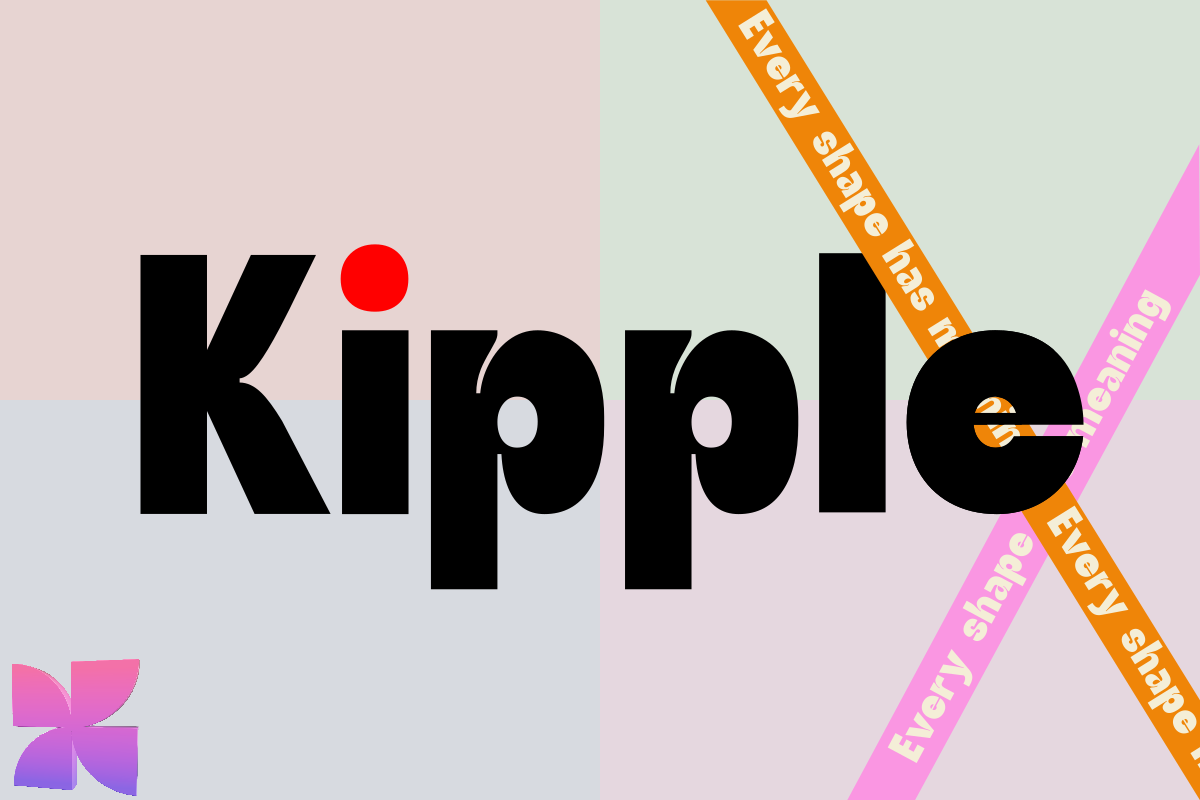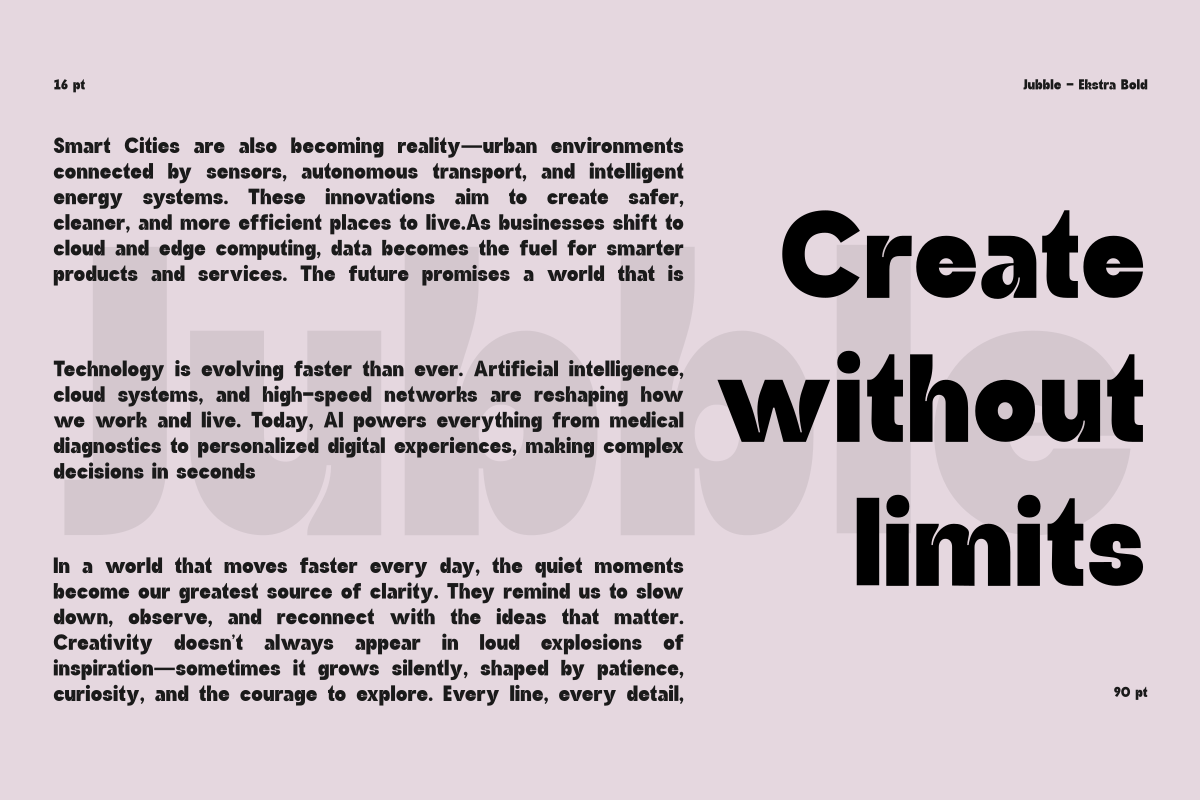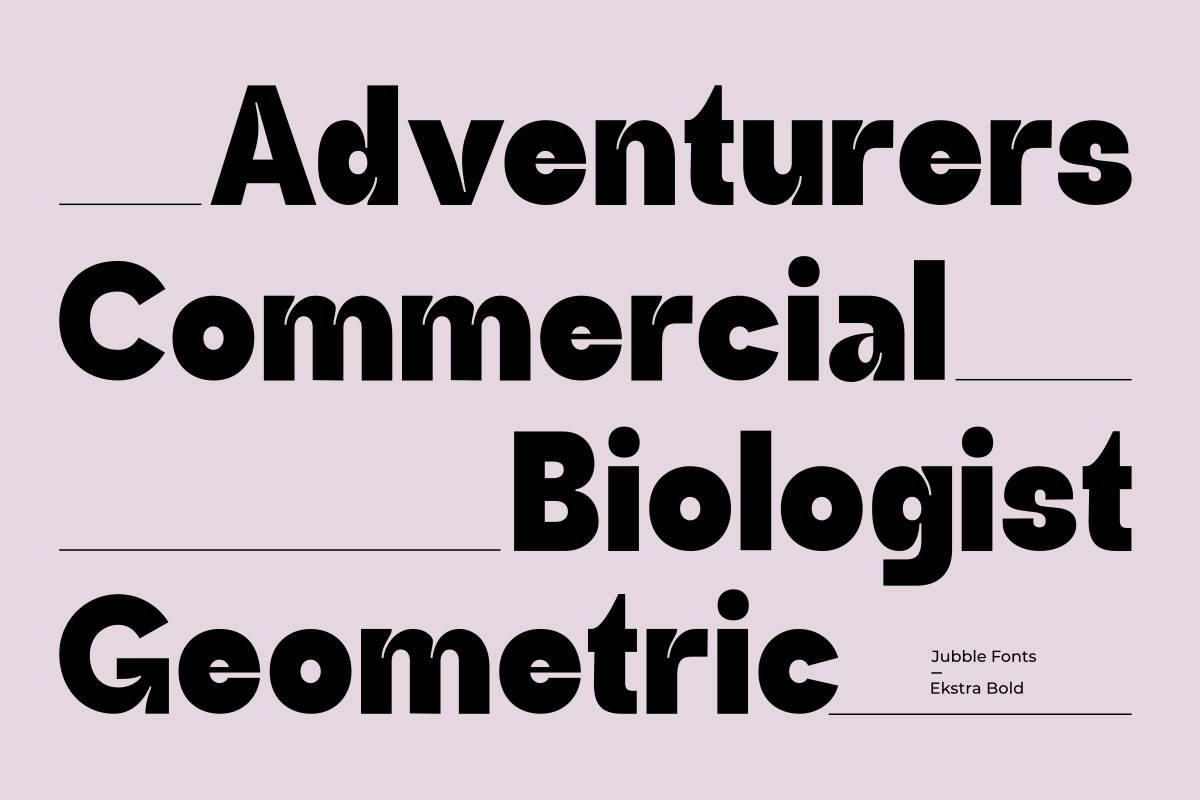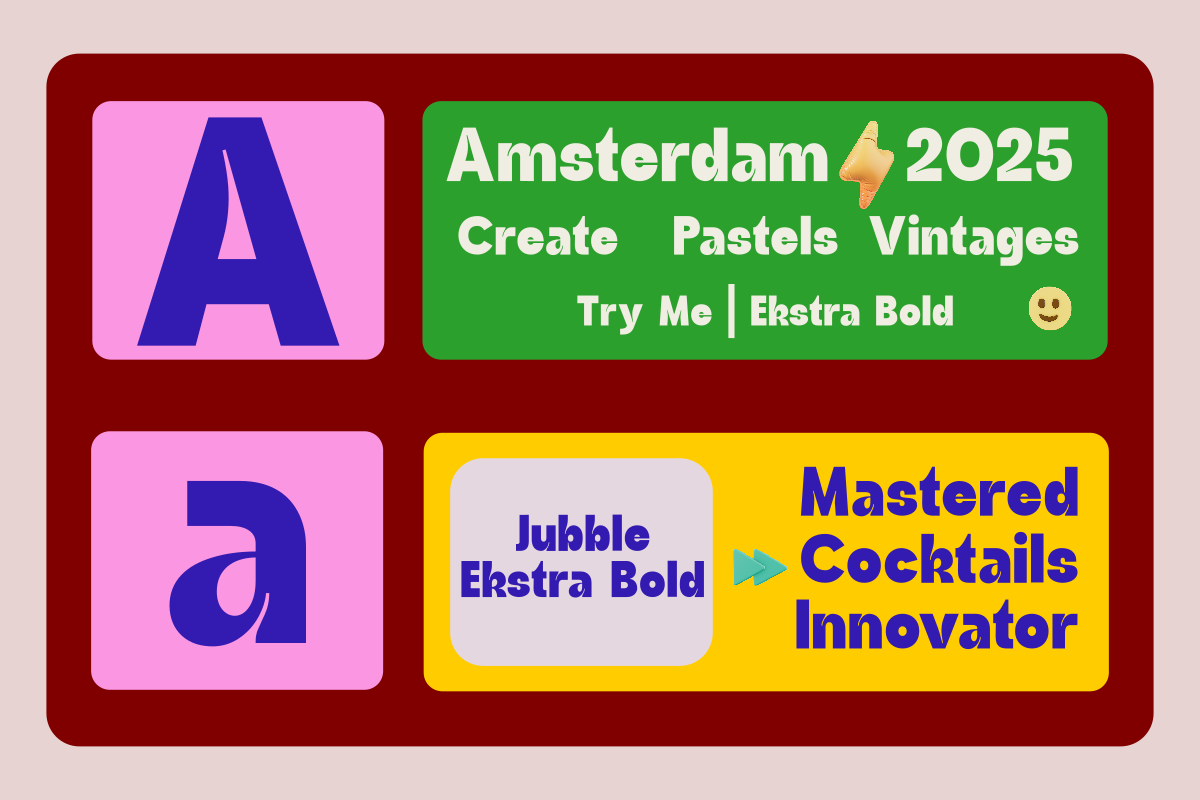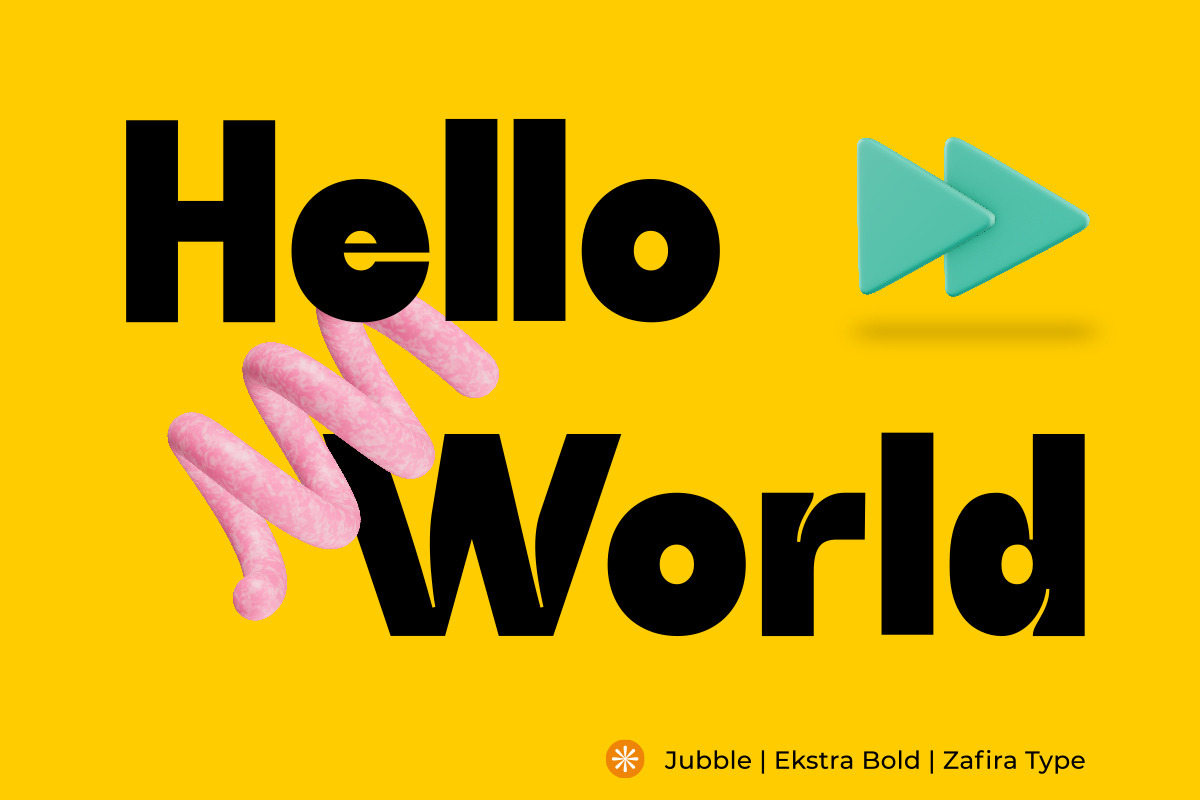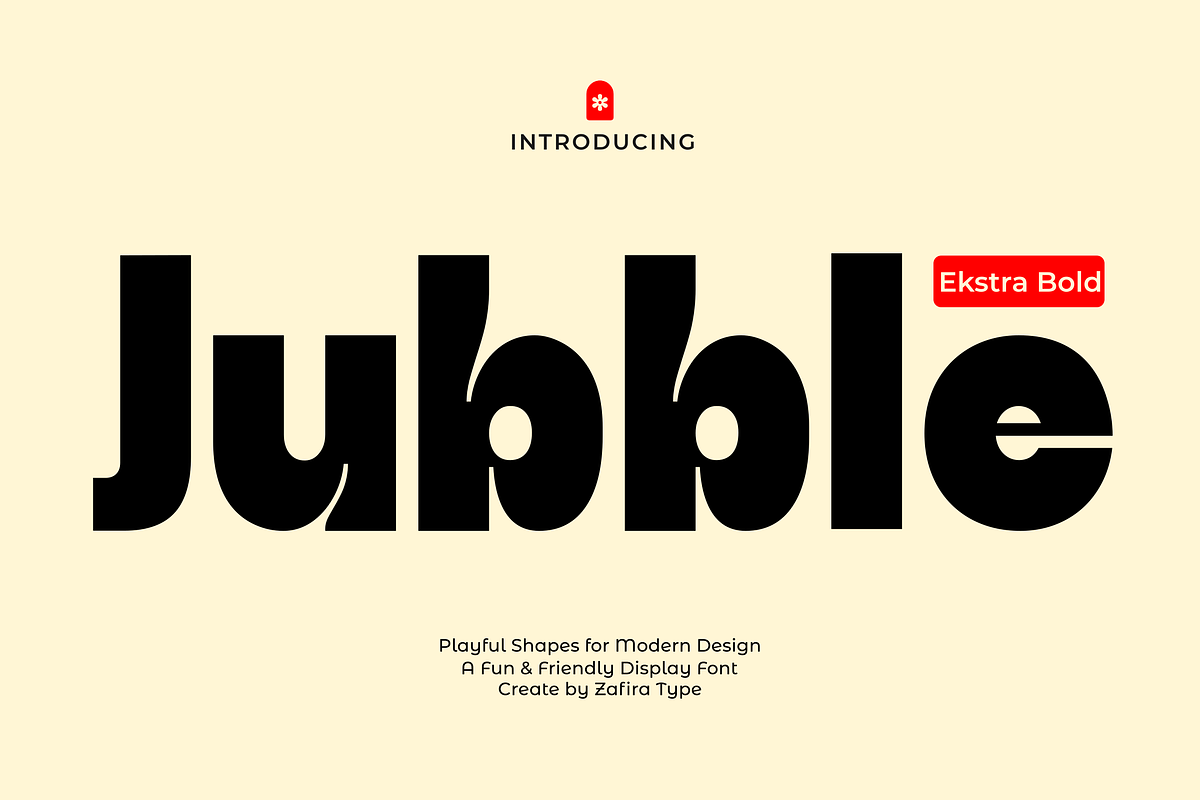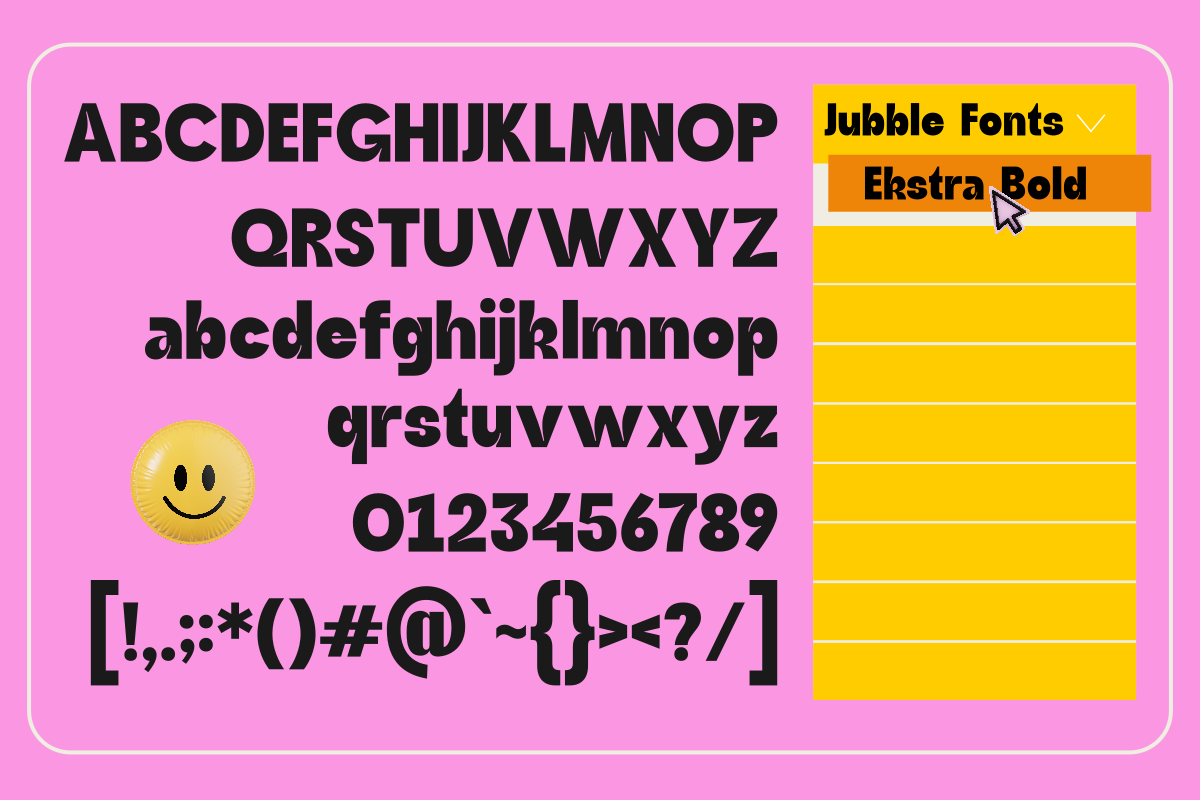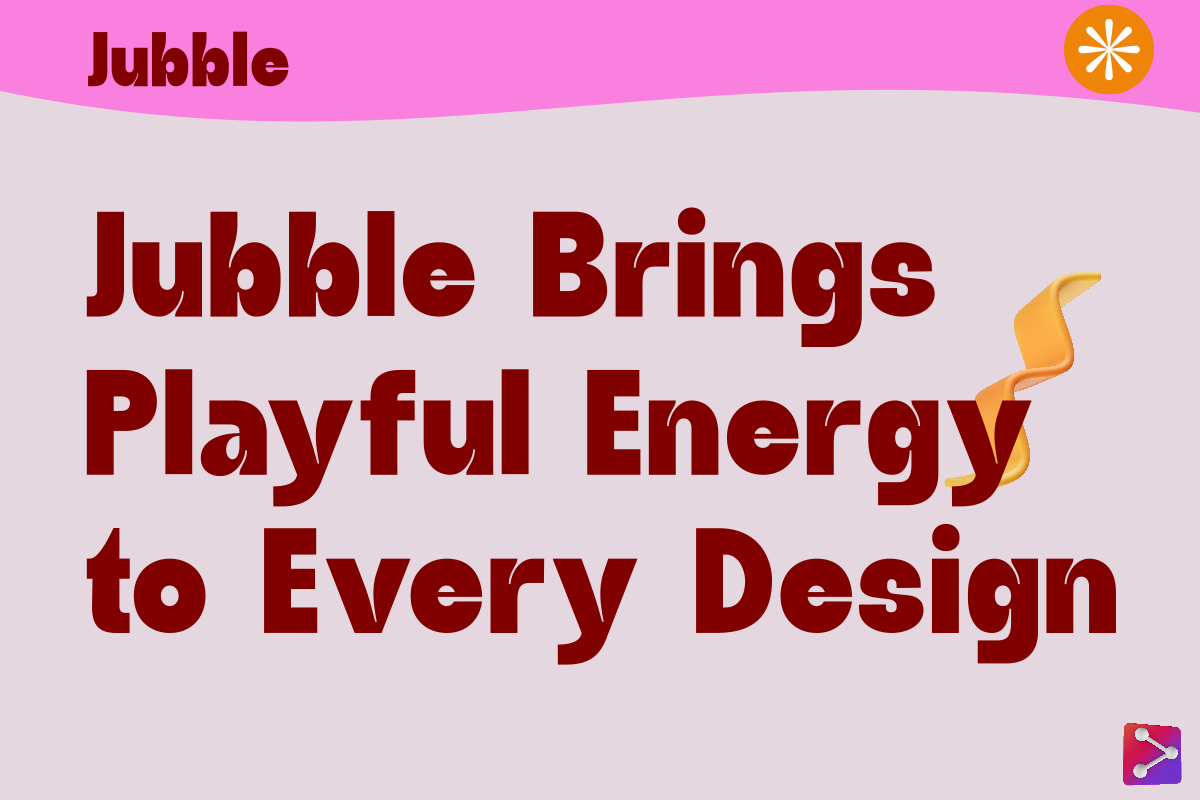
Jubble Extra Bold
Introducing Jubble Extra Bold, a modern sans serif with soft, smooth details that make every design feel more vibrant, fresh, and memorable. Its rounded shapes create a friendly and approachable vibe, while the clean structure keeps the overall look professional and contemporary.
If you want to bring a modern, bright, and personality-driven mood to your visuals, Jubble Light is the perfect choice. Use Jubble Extra Bold for standout headlines, memorable logos, or comfortable, easy-to-read body text.
Perfect for: branding, premium packaging, social media, websites, apps, advertising, and any creative project that needs a modern + friendly touch.